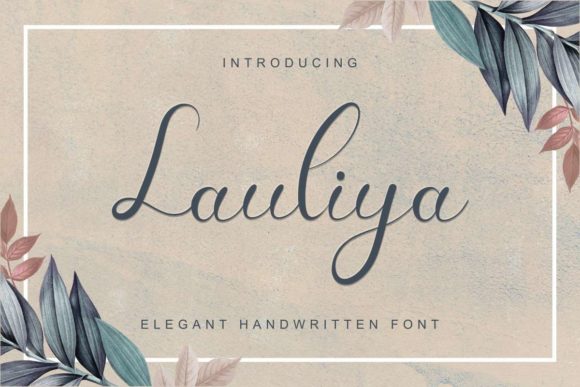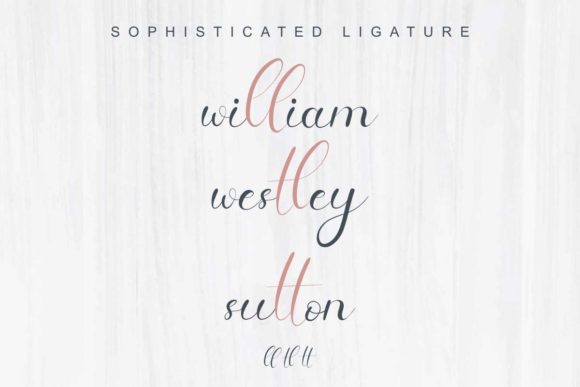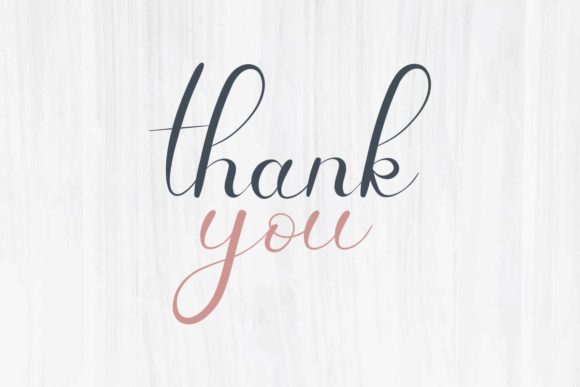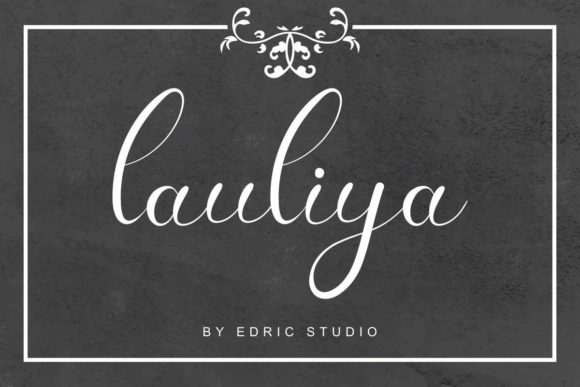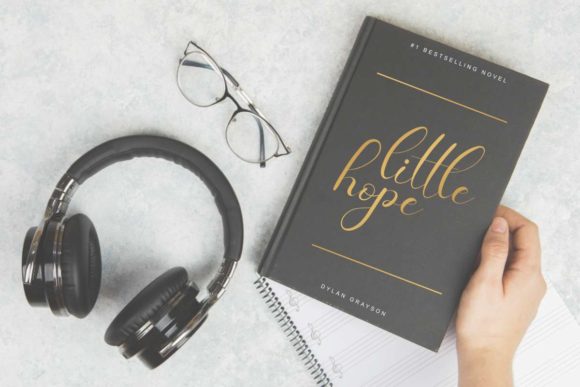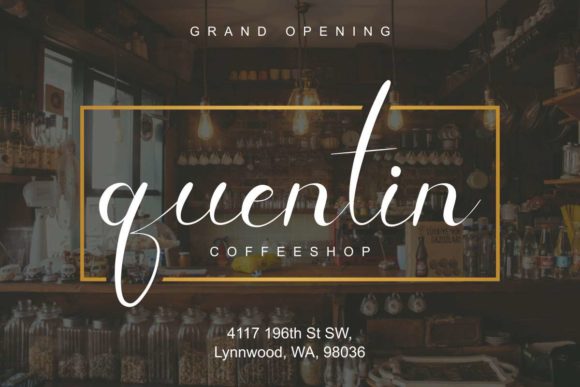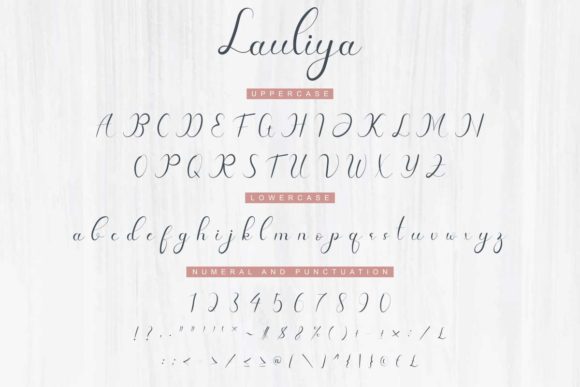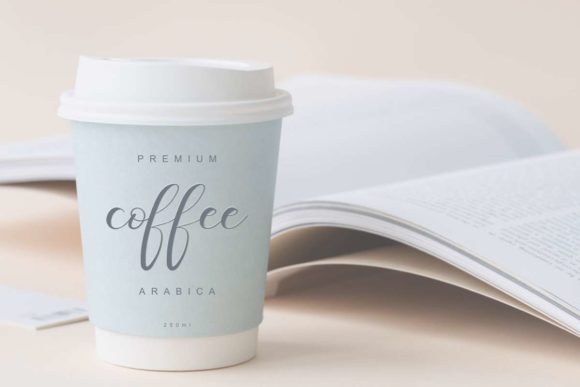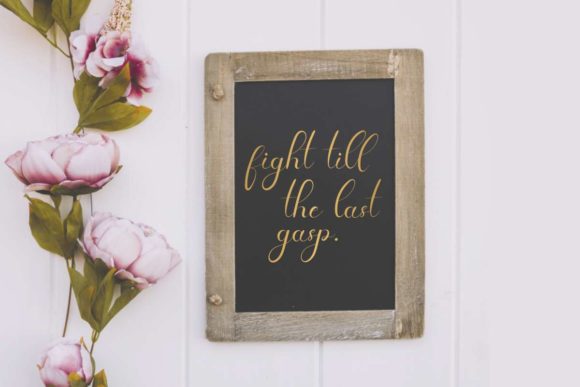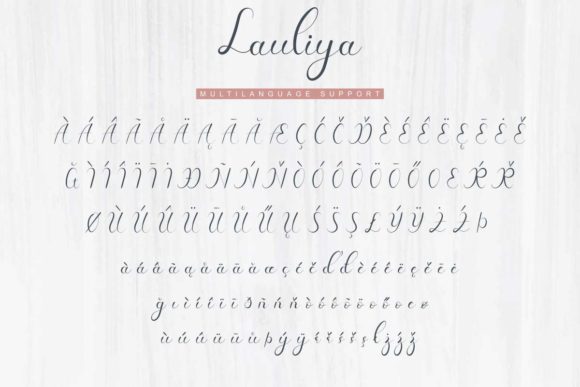
Lauliya Font
About Lauliya Font
Lauliya is a sweet, soft hand-lettered handwritten font. It features a varying baseline, smooth lines, gorgeous glyphs and stunning alternates. It will take your designs to the next level!